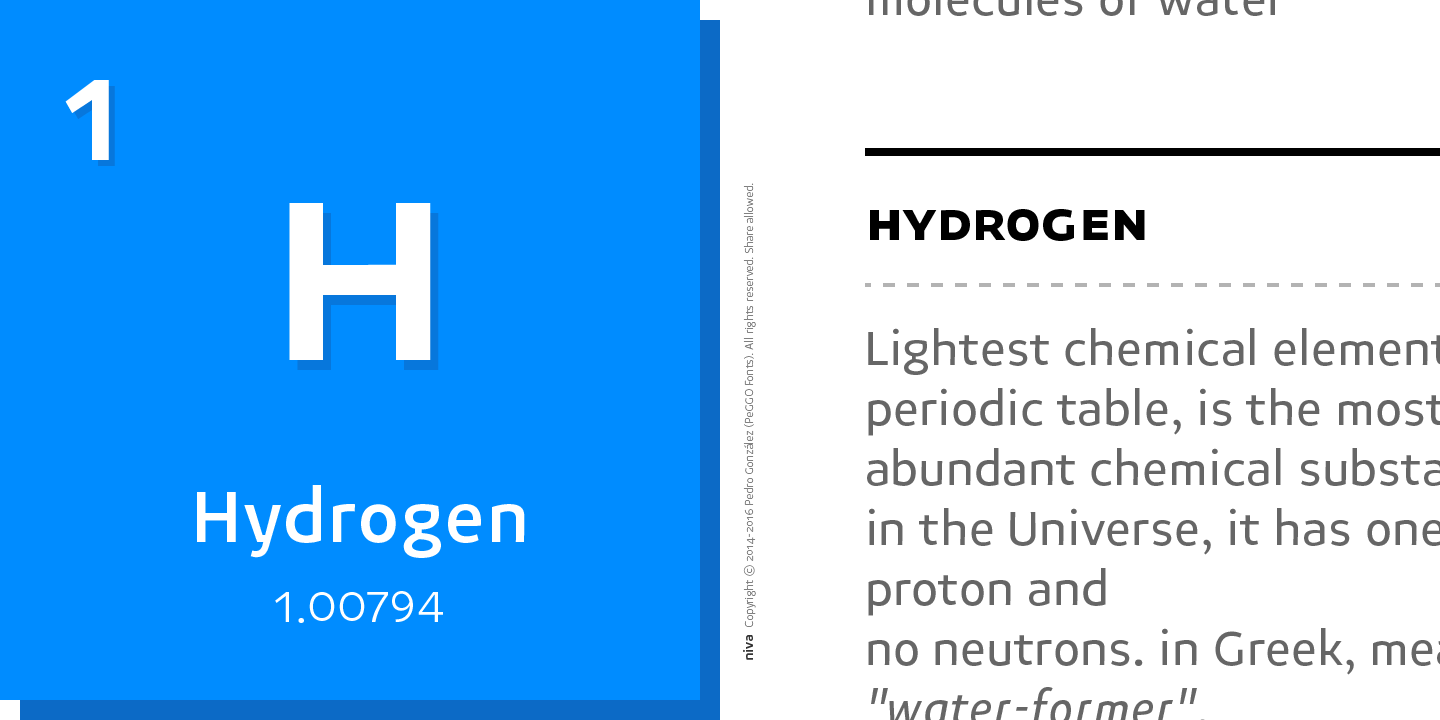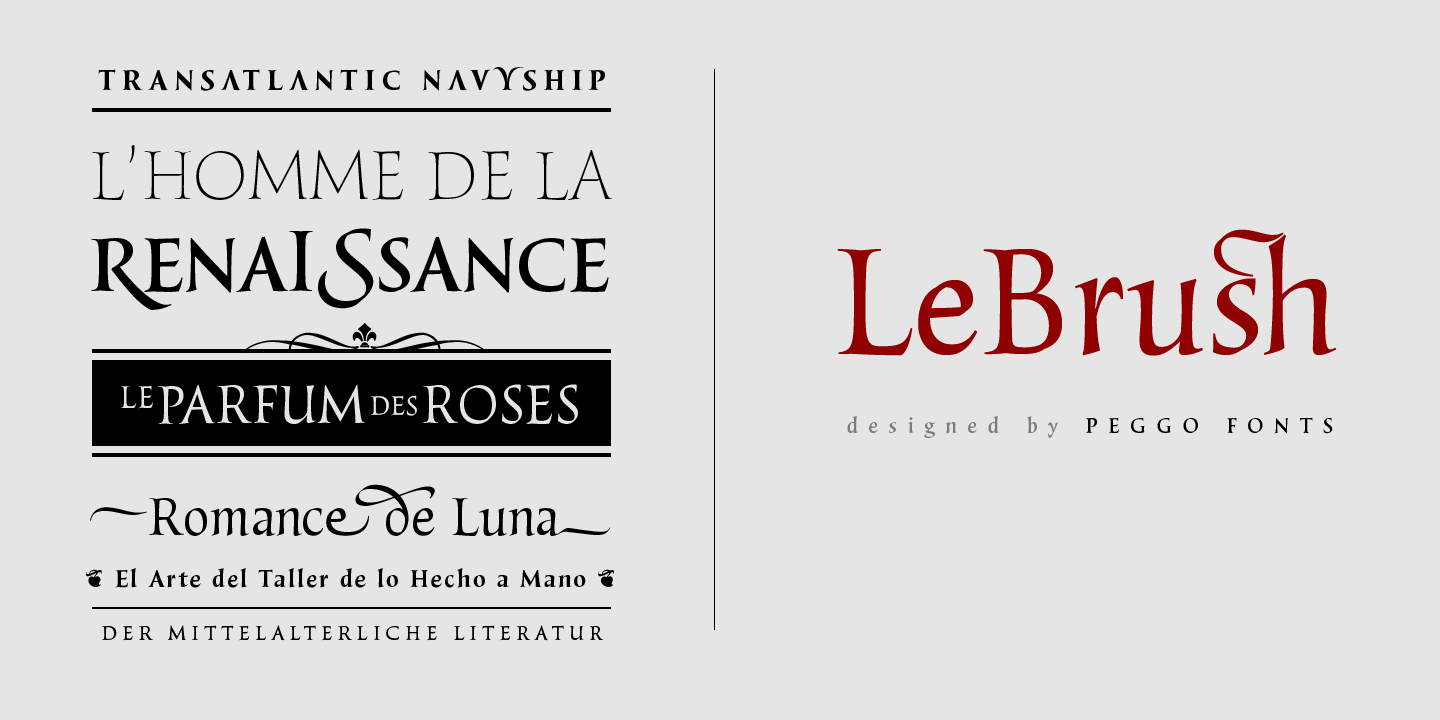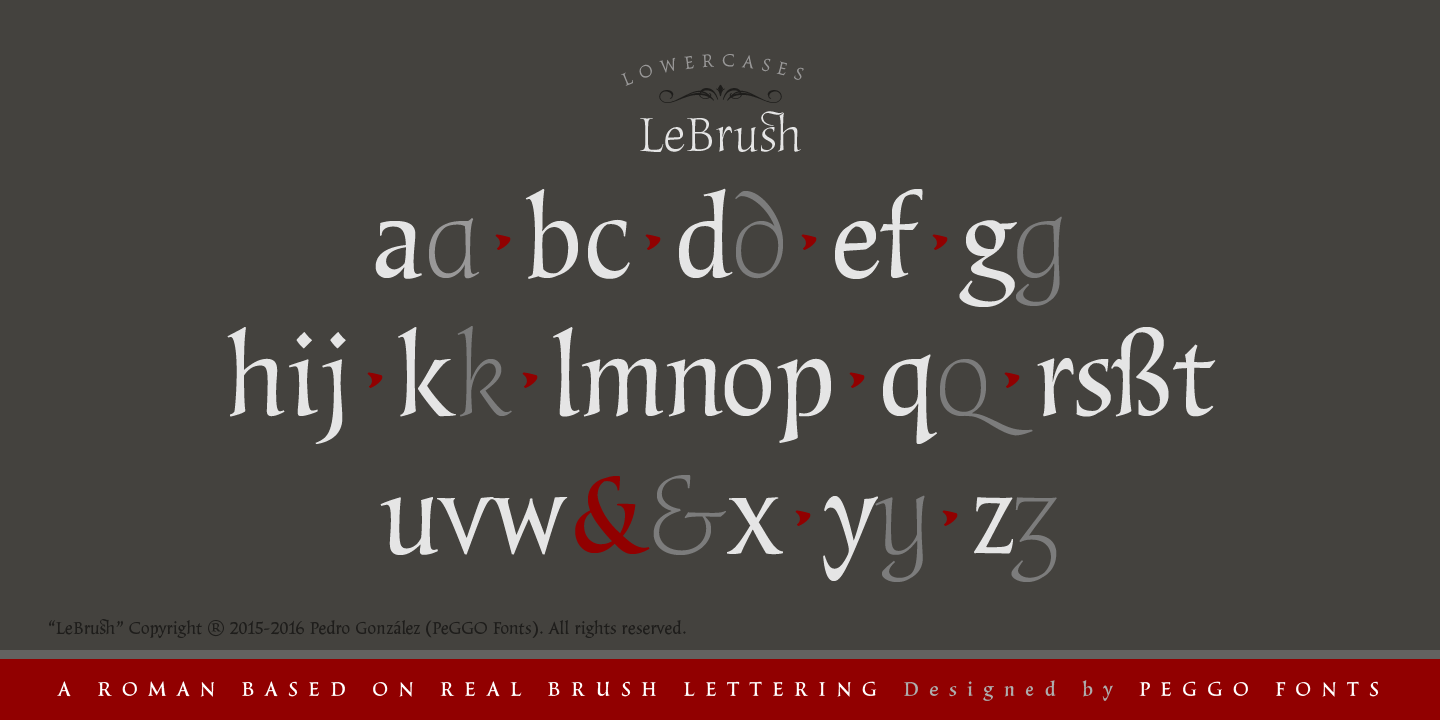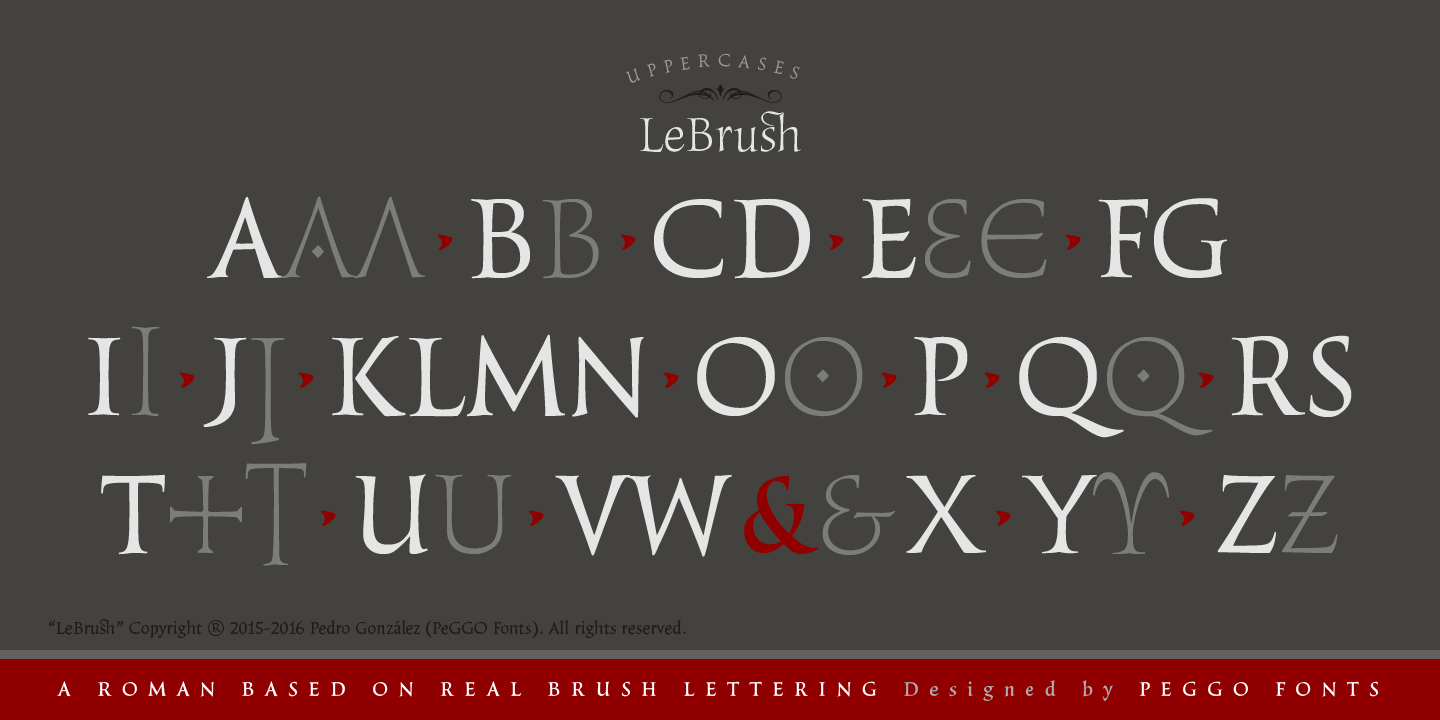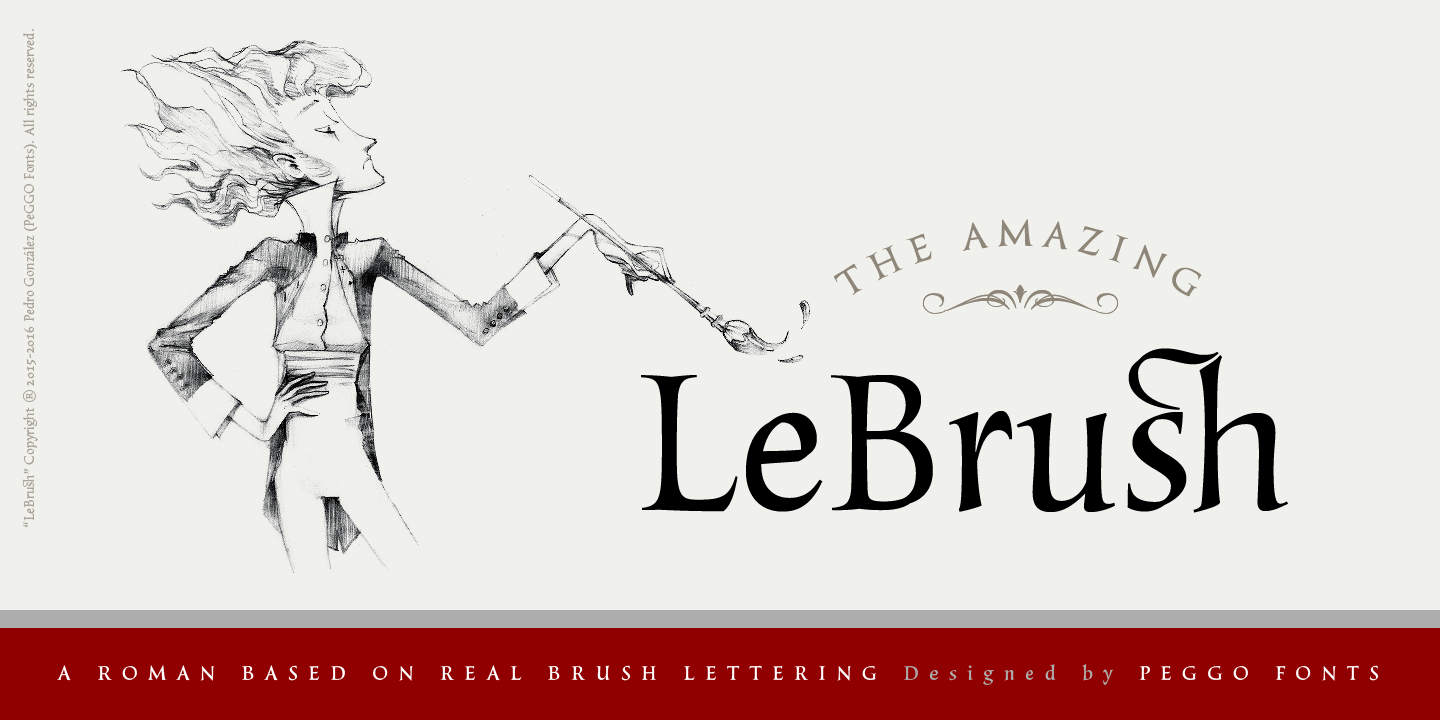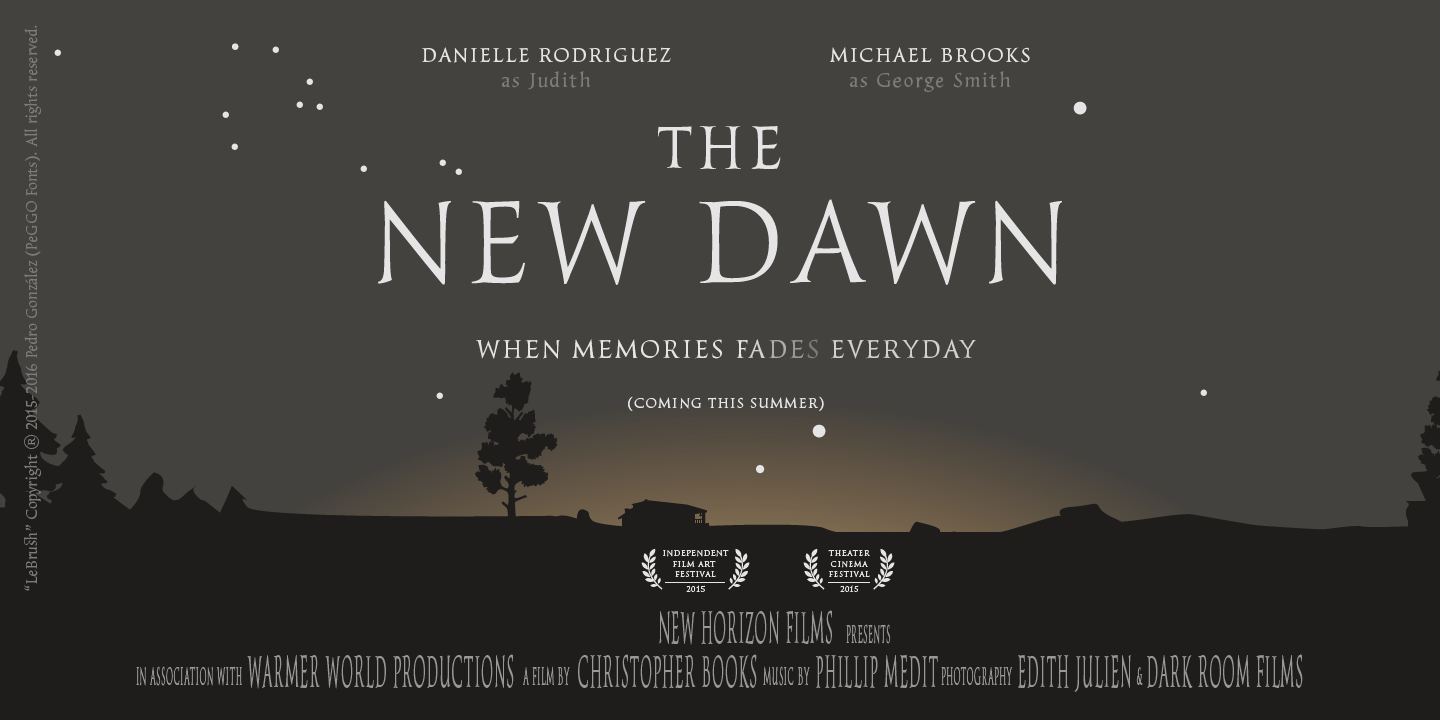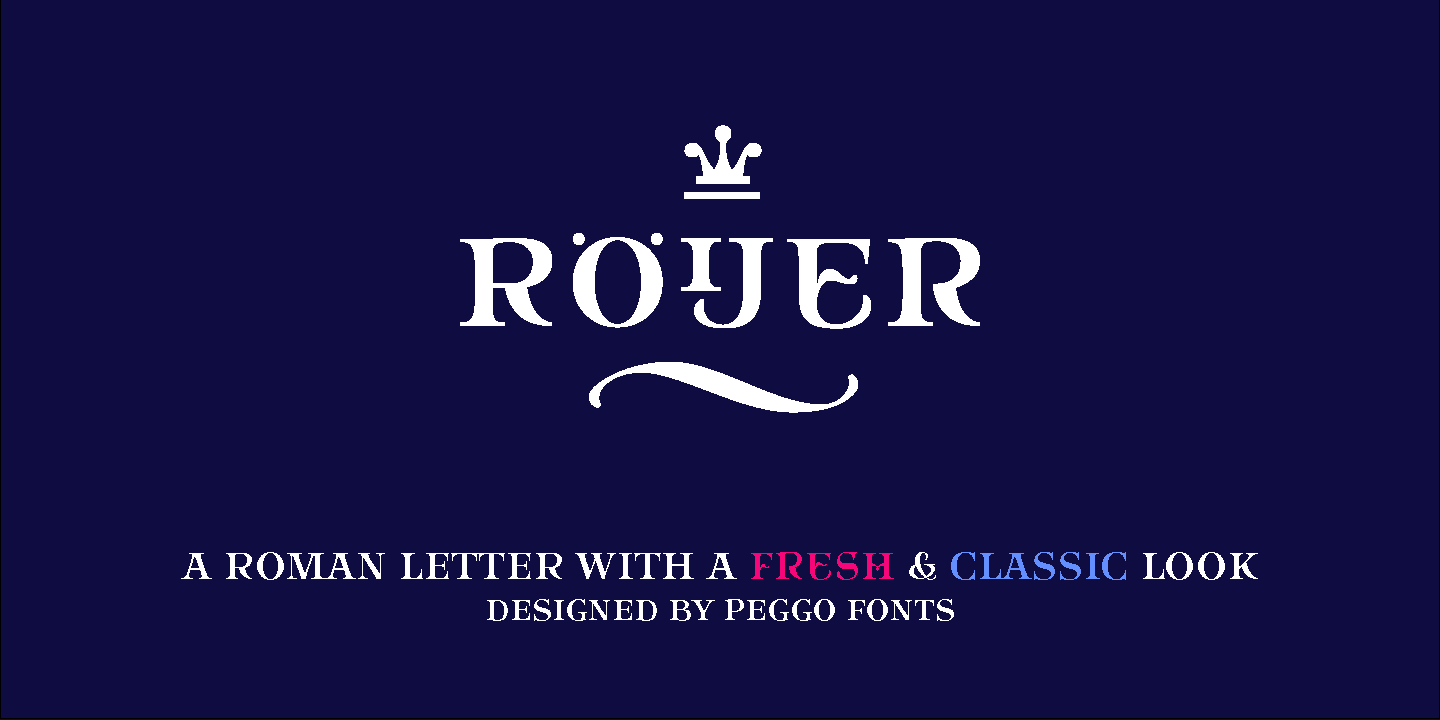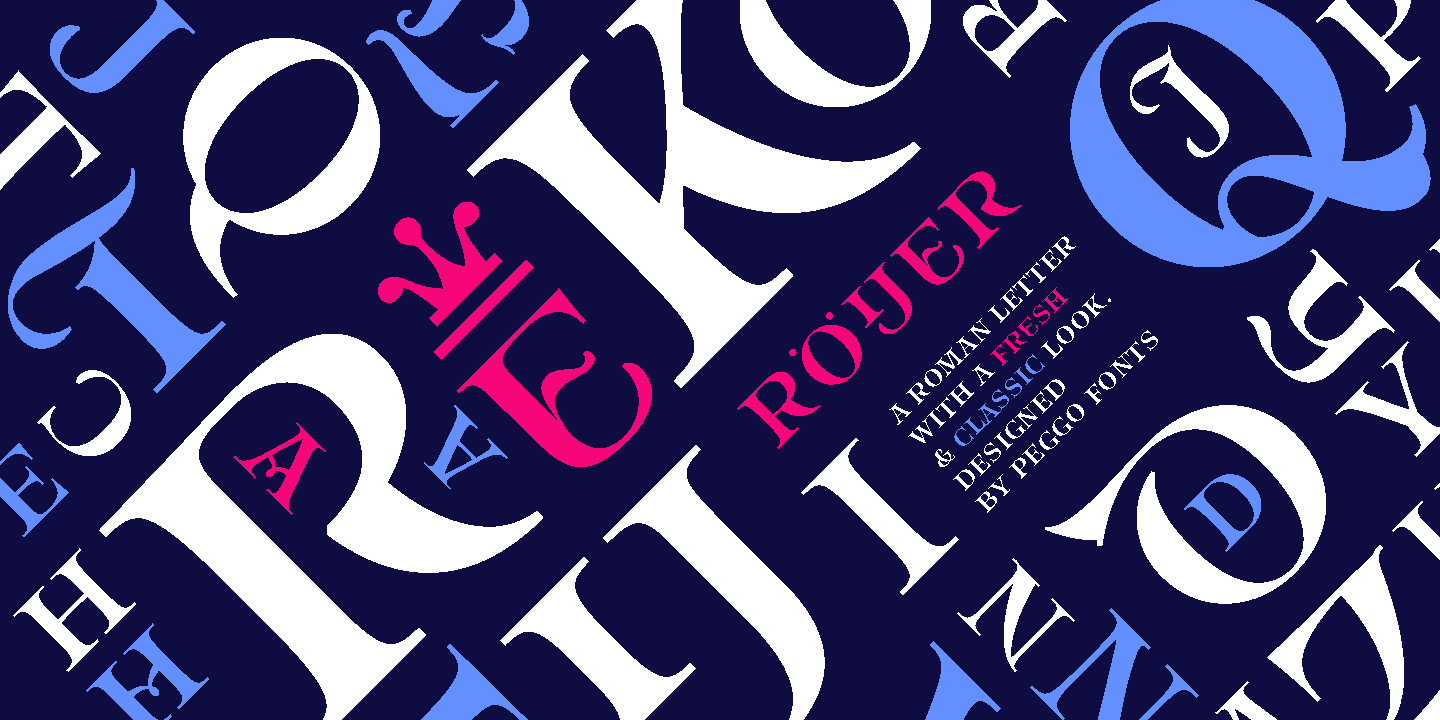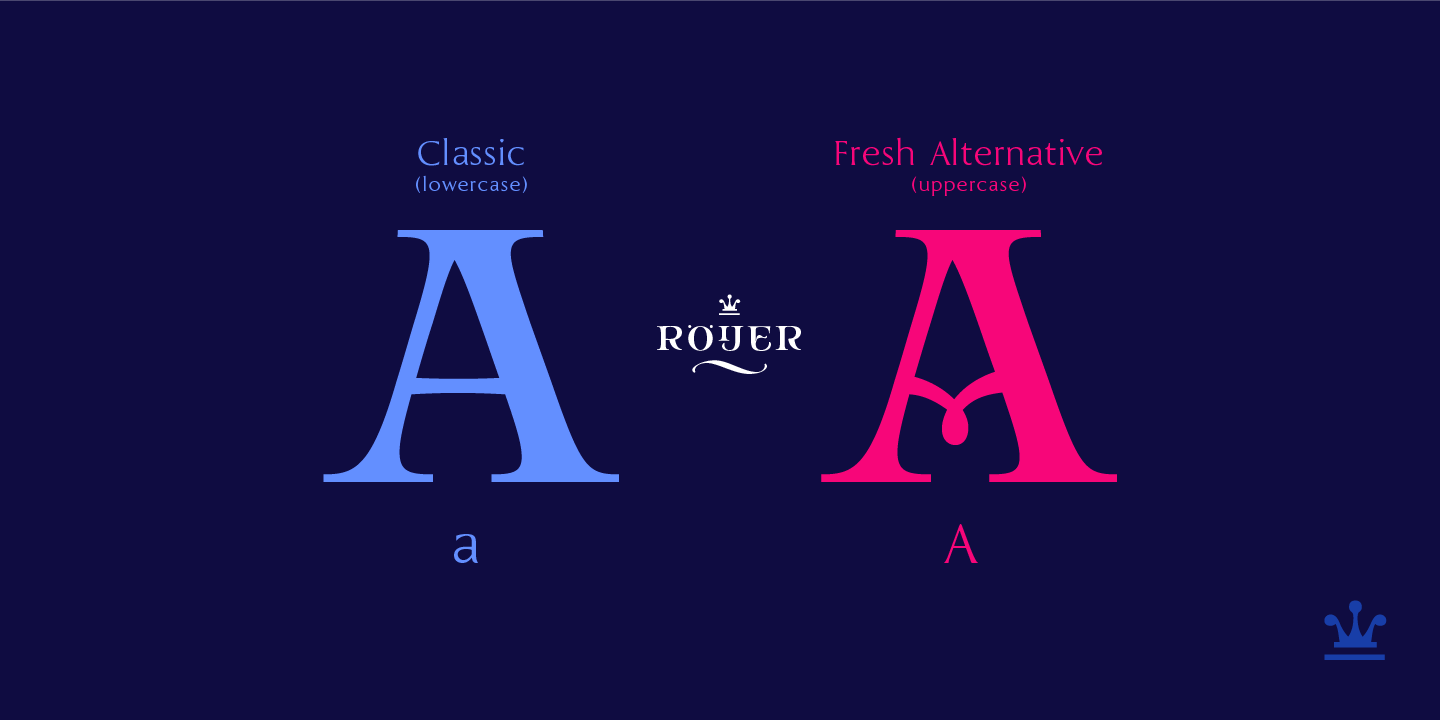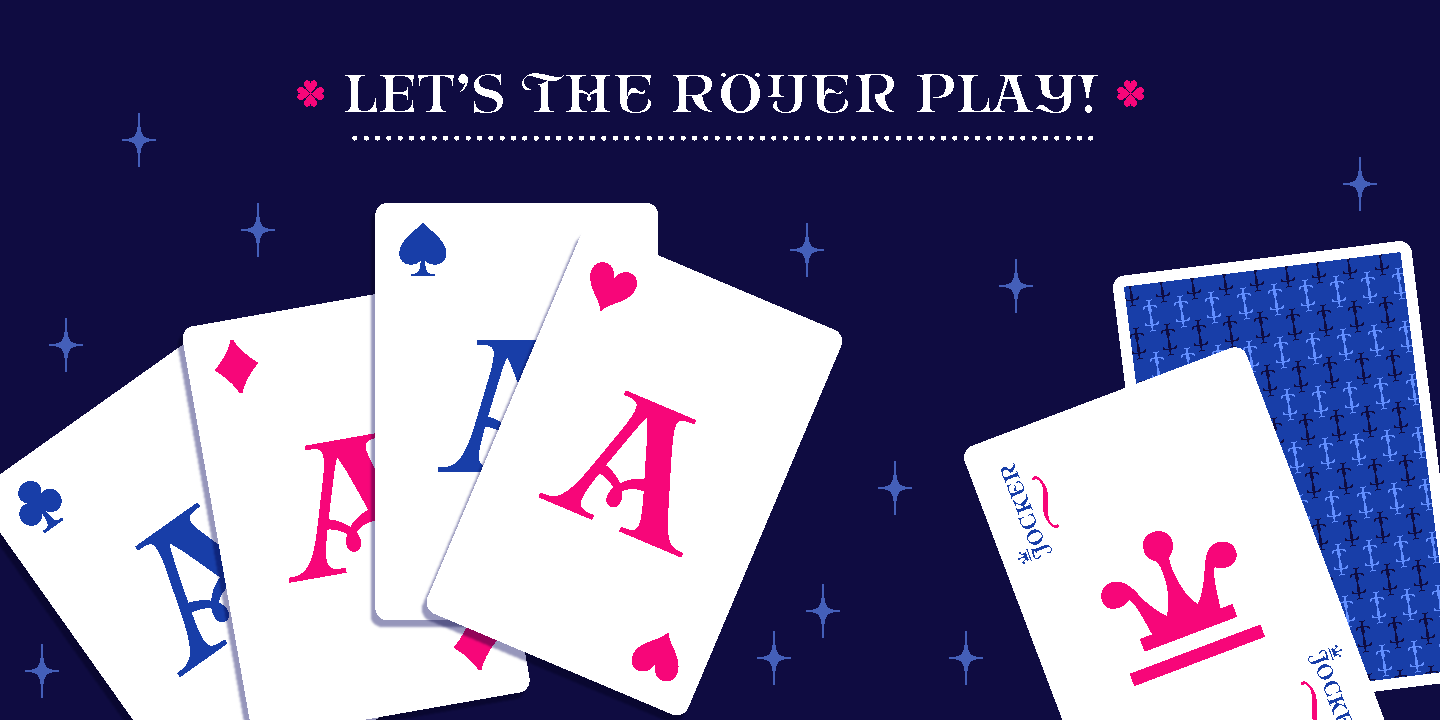
Pedro González (aka “PeGGO”) is a type designer, calligrapher and illustrator from Chile, who graduated in Graphic Design in 2005 from the Universidad del Bío-Bío. He designed some commercial fonts, such as Legan (2008-2011, a mini-serifed Trajan face that includes classical uppercase but also lowercase, cyrillic, greek and a very large latin based language support), Farola (2008, a curly Victorian face; +Farola Simple, without curls), Thörtl (an angular display face), Gothric (gothic), Claramaria (sans), Claramaria Mega Black (extrablack version), Claramaria Extra Light (hairline version), Fonton (a fat elliptical face), Cuadrada (2010, angular), Trianglery (2010, calligraphic), Politic (+ExtraLight, +ExtraBlack: a slabbed family), Bolta, Minesmall (handprinted), SP-Font (squarish), Halcön (2008, blackletter), Krämfark (2008, blackletter). Calligraphic works include L'Ecole d'Fine Arts (2009), Paradise Duck, Eclesiastes (based on “La Rueda” of Sheila Waters, 1981),